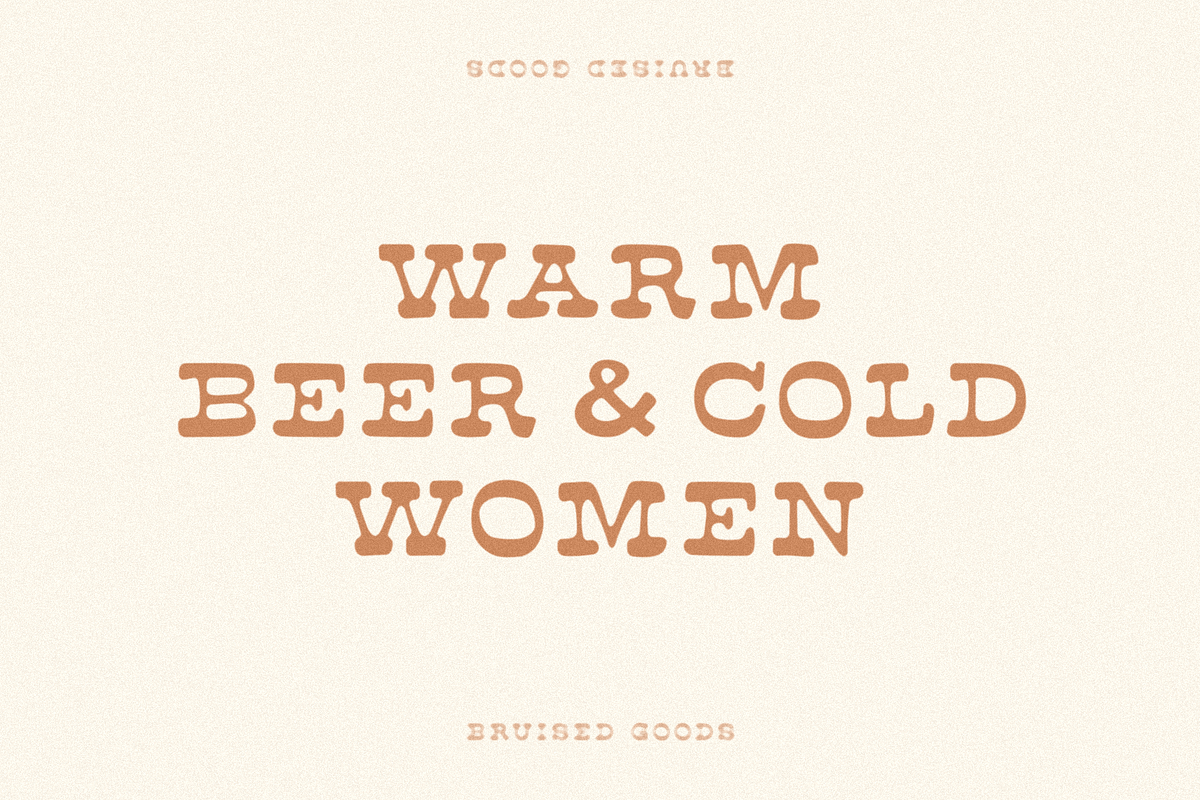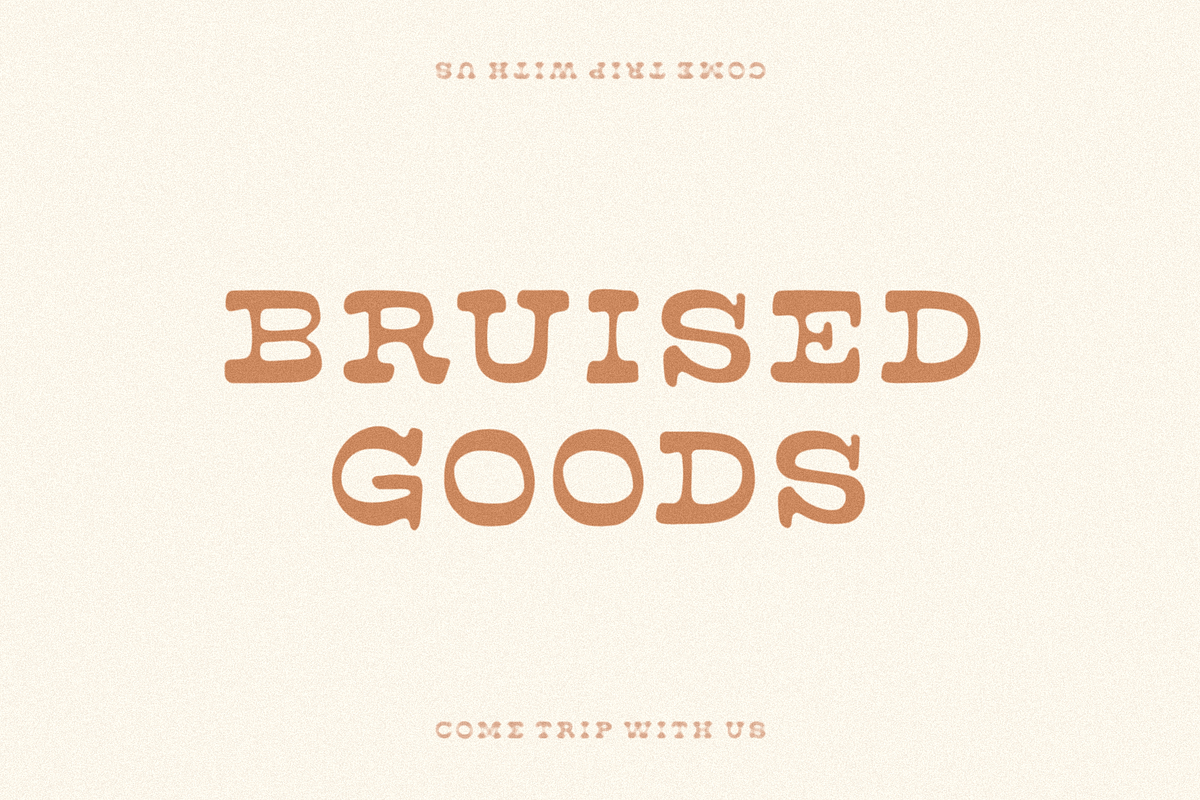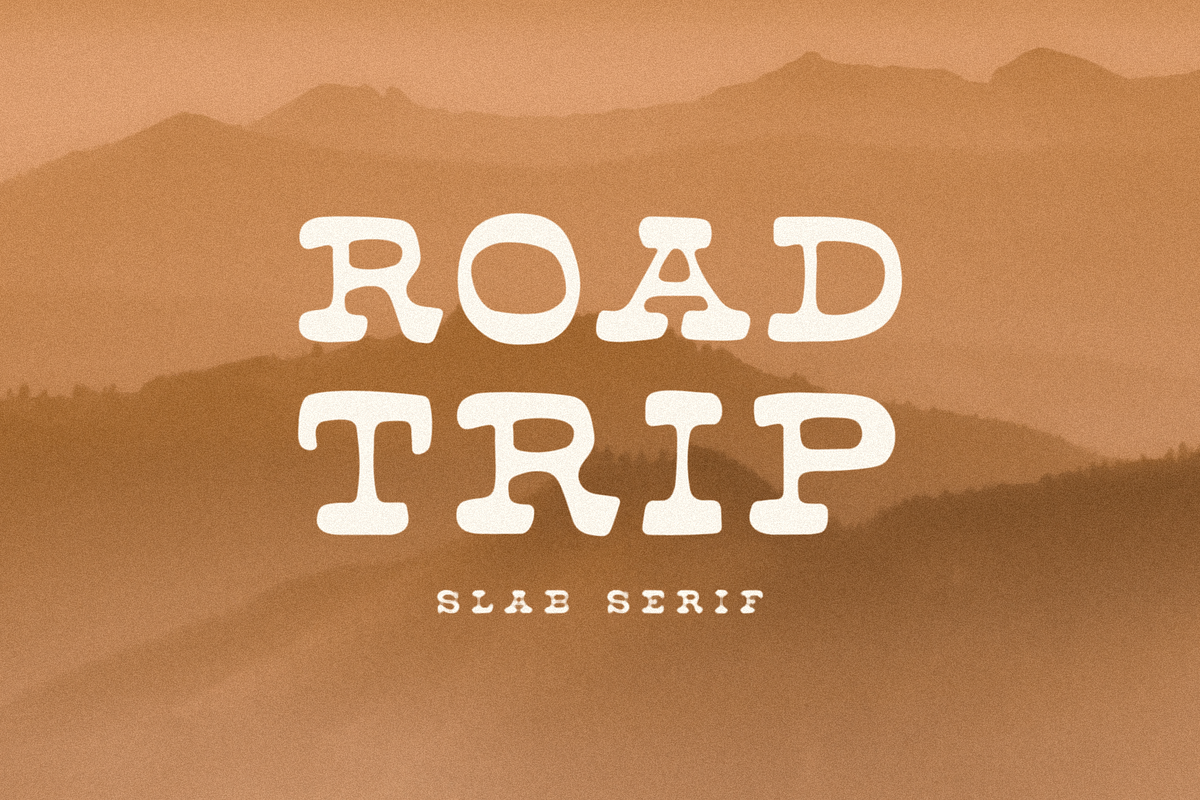
Road Trip
ROAD TRIP – A hand crafted slab serif, inspired by great road trips of the past, present, and future.
- Uppercase letters ONLY
- Standard English alphabet
- Numbers, Currency Symbols, Standard Punctuation